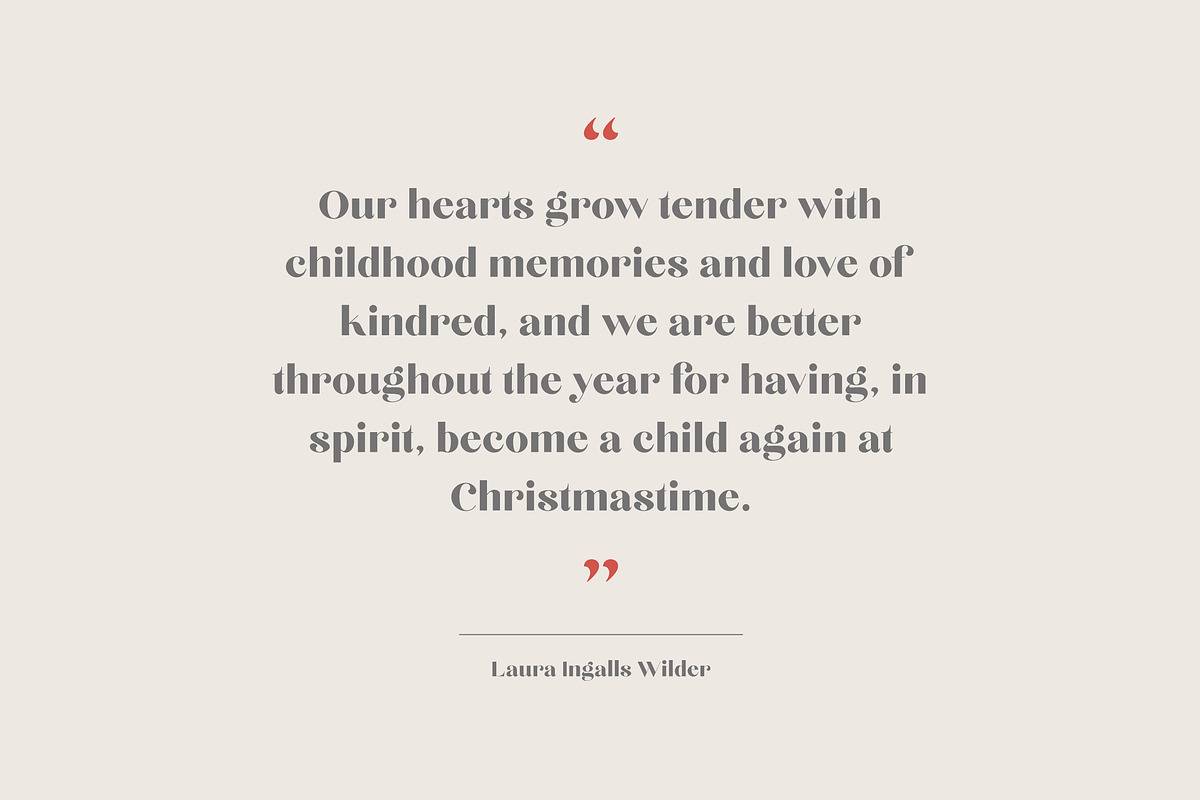
Chloe Font
Chloe is a classic sans serif font that embodies elegance and strength, making it an excellent choice for sophisticated designs.
Create bold, gorgeous headlines and elegant designs with a vintage flair. Chloe’s contrasting lines and curved terminals give a sleek, elegant look to logos, holiday cards, wedding invitations, quotes, advertisements, and more.
It is a versatile typeface that’s full of character and one you’ll come back to time and again. Create something beautiful today with Chloe.
Chloe Sans Serif Font